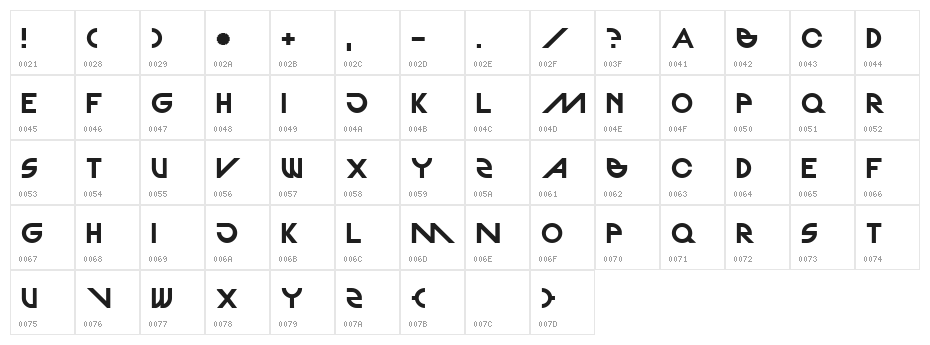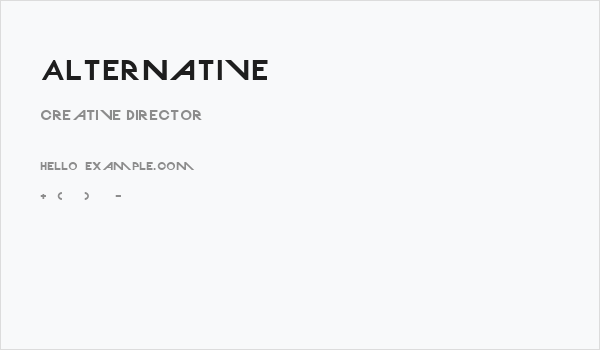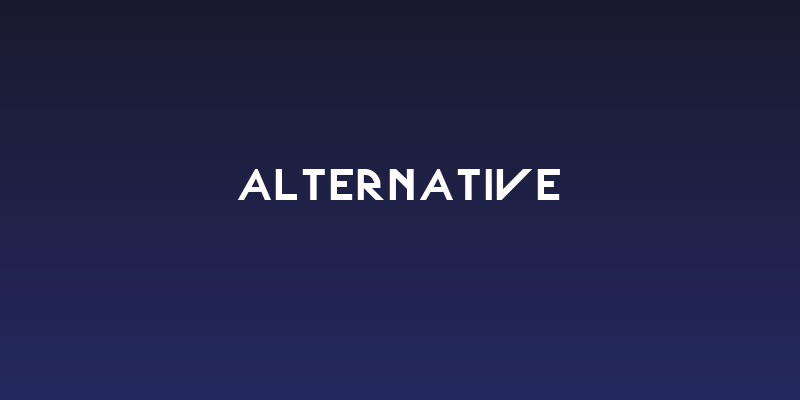
Alternative Font
Alternative Description
This font features a bold, geometric style with a futuristic and modern aesthetic. The characters are constructed with sharp angles and clean lines, creating a sense of precision and innovation. The uppercase letters exhibit a unique blend of symmetry and asymmetry, with some characters incorporating unexpected cuts and curves that add a dynamic flair. The lowercase letters maintain the same geometric principles, ensuring consistency across the typeface. The numerals and special characters follow suit, offering a cohesive look that complements the overall design. This font's distinctive appearance makes it ideal for projects that require a modern and cutting-edge feel.
| Proposed Projects | Ideal for technology branding, sci-fi movie posters, and modern digital interfaces. |